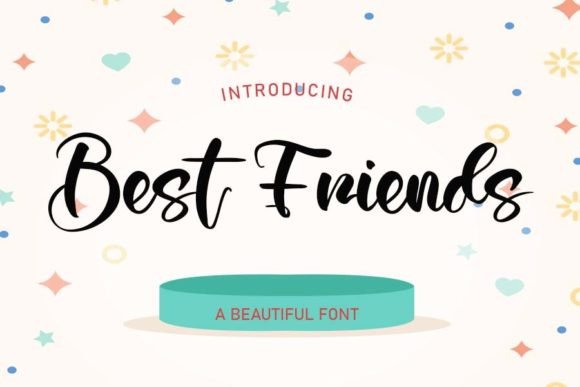
First Impressions: A Love Affair with “Best Friends”
As soon as I laid eyes on “Best Friends”, I knew I had found the one. This beautiful font has delicate curves and clean lines that add a touch of elegance to any project. Its effortless beauty will capture the hearts of all who see it. Whether you’re a designer, crafter, or creative hobbyist, “Best Friends” is sure to become your go-to font for all your design needs.
So, what do I love about “Best Friends”? Here are a few things that make this font stand out:
- ✨ Elegant and sophisticated: “Best Friends” is perfect for high-end designs, wedding projects, and luxury brands.
- ✅ Highly legible: Even at small sizes, this font remains clear and easy to read.
- 💫 Versatile: “Best Friends” works beautifully in both digital and print formats.
And, like any font, it’s not without its quirks:
- 🤔 Limited character set: While “Best Friends” has a wide range of characters, it may not have every special character or glyph you need.
- ⚠️ May not be suitable for body text: Due to its elegant and cursive nature, “Best Friends” may not be the best choice for large blocks of body text.
The Story Behind “Best Friends”
The story behind “Best Friends” begins with a designer who wanted to create a font that captured the essence of simplicity and elegance. Inspired by classic handwritten scripts, this designer carefully crafted each letterform to create a font that is both beautiful and legible. The result is “Best Friends”, a font that has become a favorite among designers and crafters alike.
| Font Name | Best Friends Font |
| Author | Snowman Studio |
| Is “Best Friends” suitable for body text? | While Best Friends is highly legible, it may not be the best choice for large blocks of body text due to its elegant and cursive nature. |